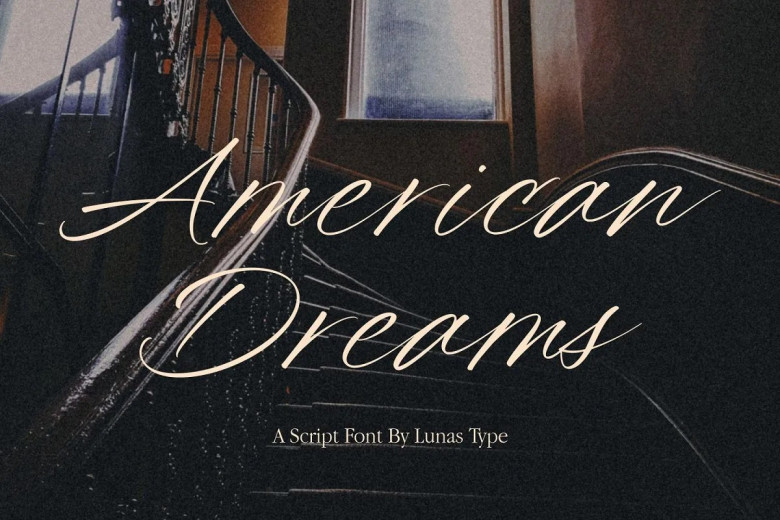
American Dreams Font
American Dreams is a script font designed to emulate fluid handwriting. With graceful curves, intricate details, and its signature style all embodied by elegant curves and detailed design elements reminiscent of calligraphy, American Dreams adds sophistication and class to any project – its flowing letterforms providing the perfect combination of elegance and spontaneity.
American Dreams font is ideal for creative displays, invitations or branding purposes. It adds elegance and charm to any design while leaving a lasting impression with viewers.
American Dreams Handwritten Script Font